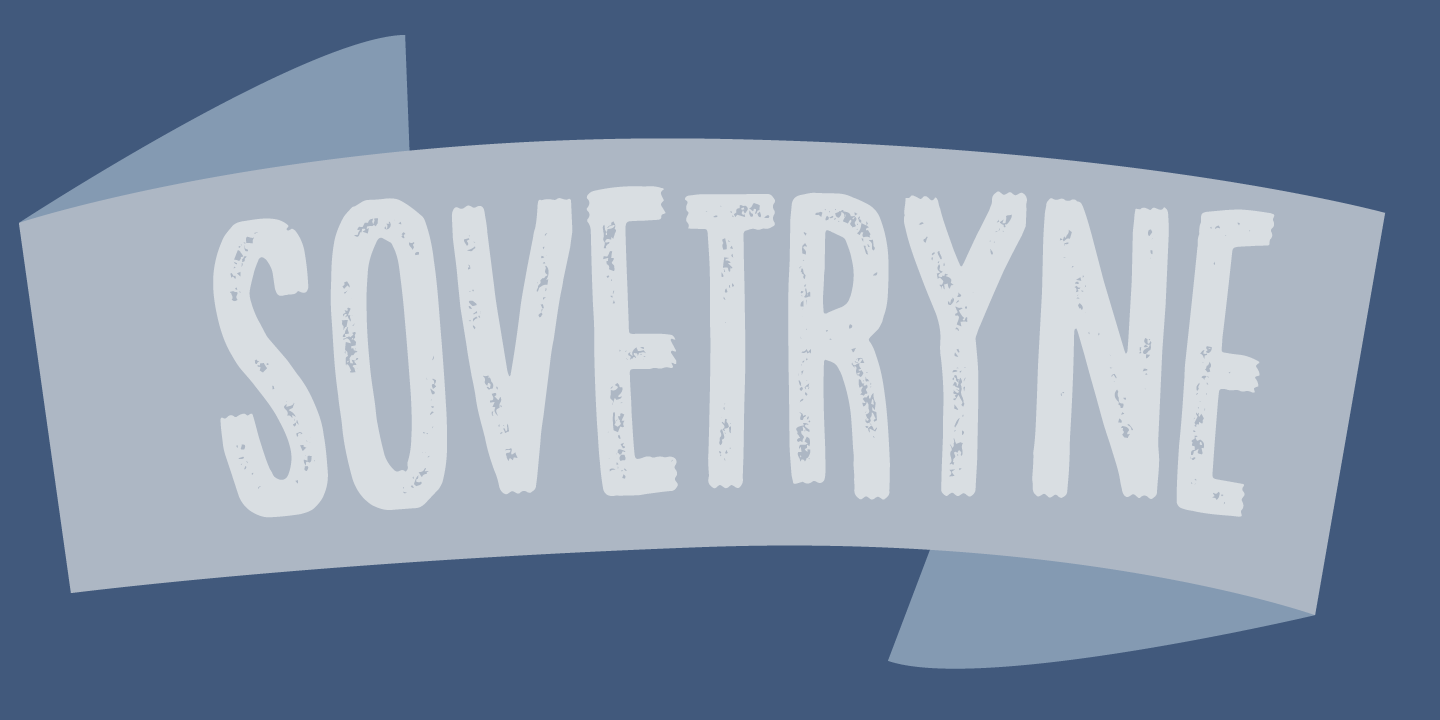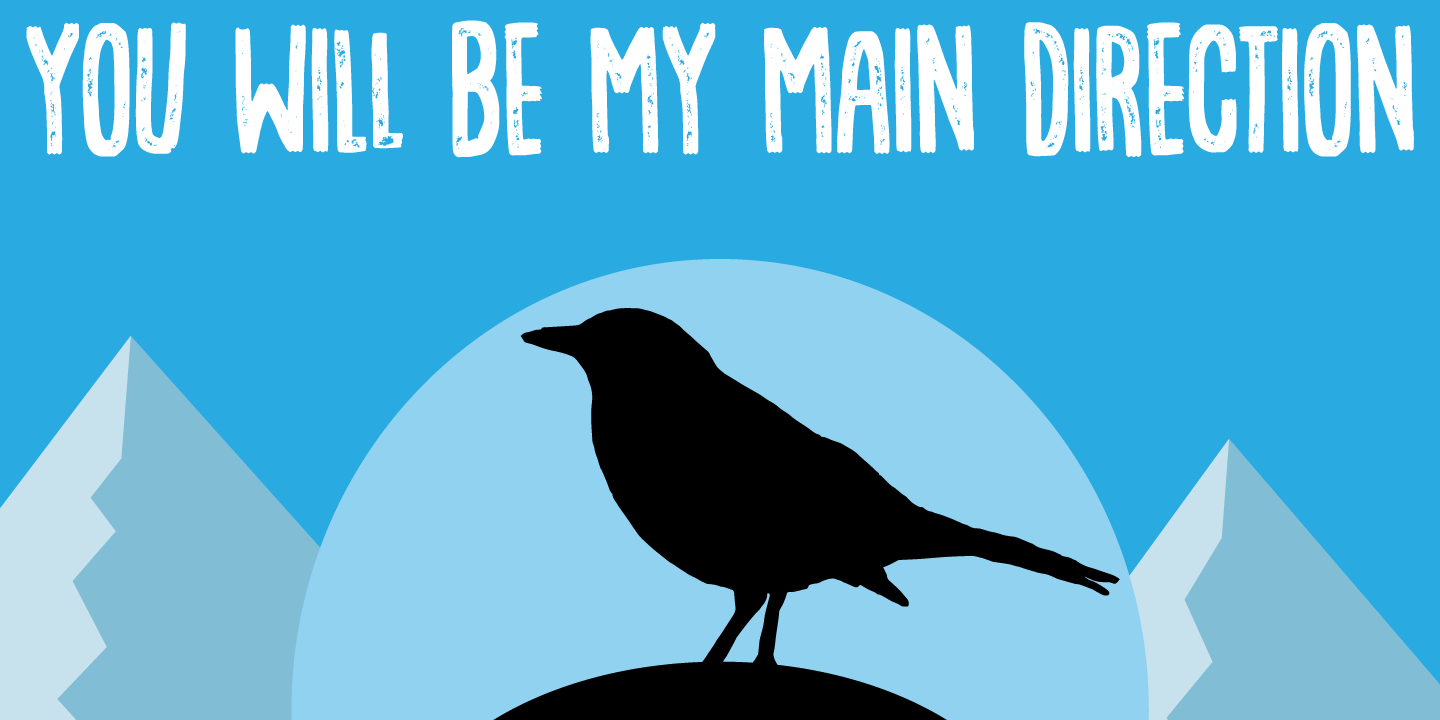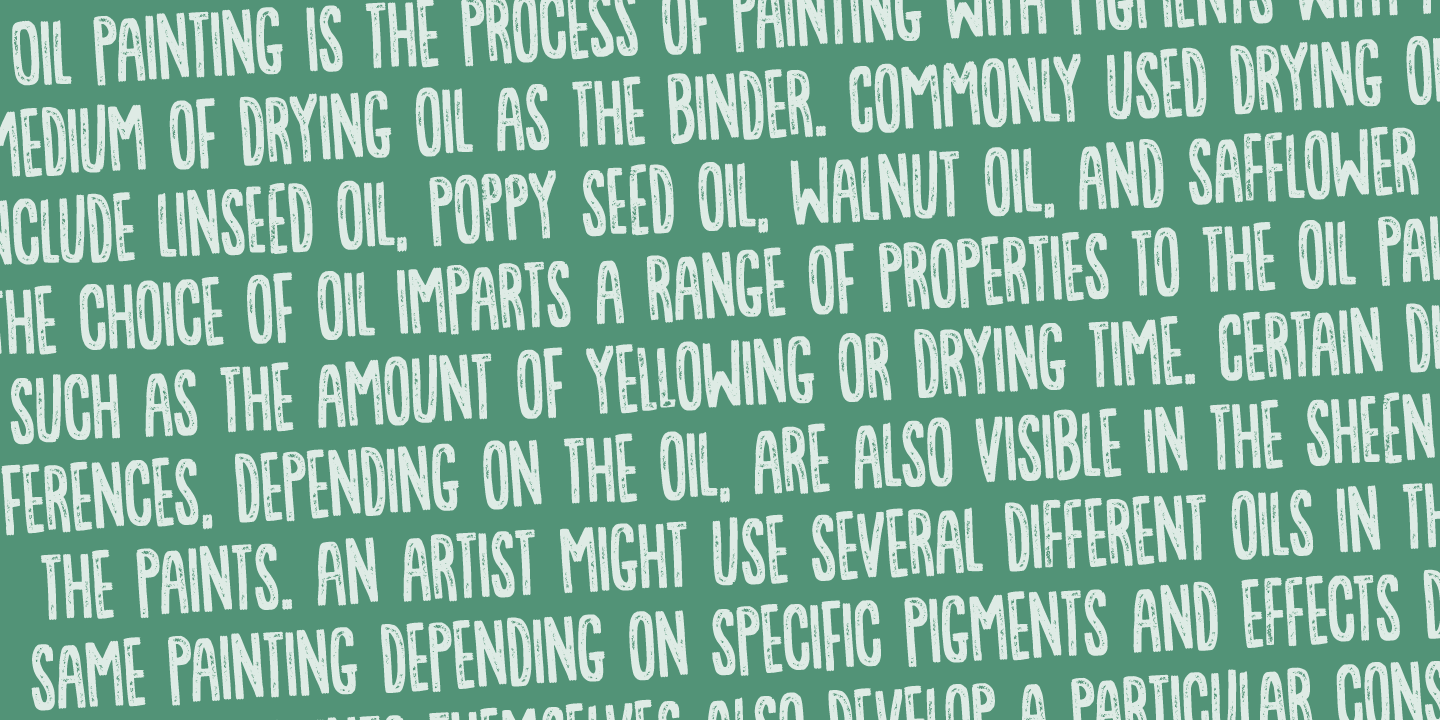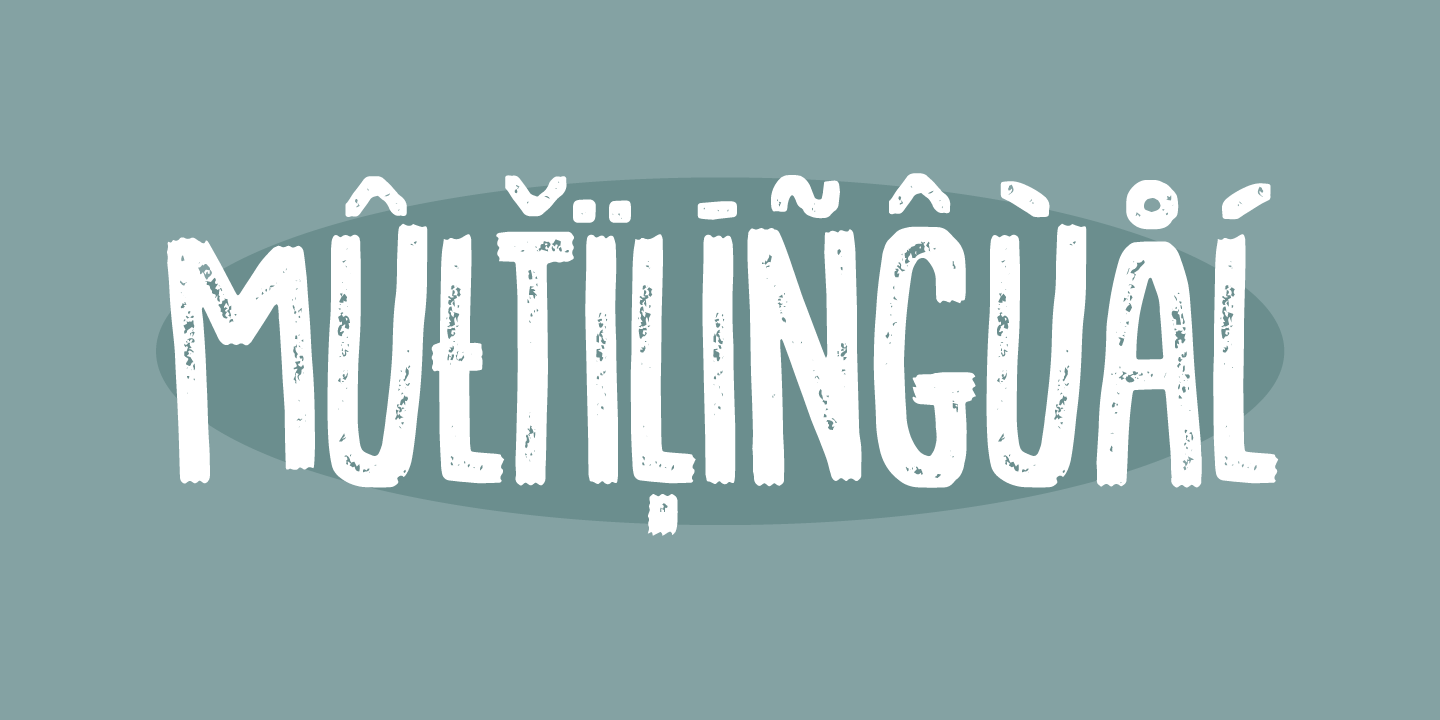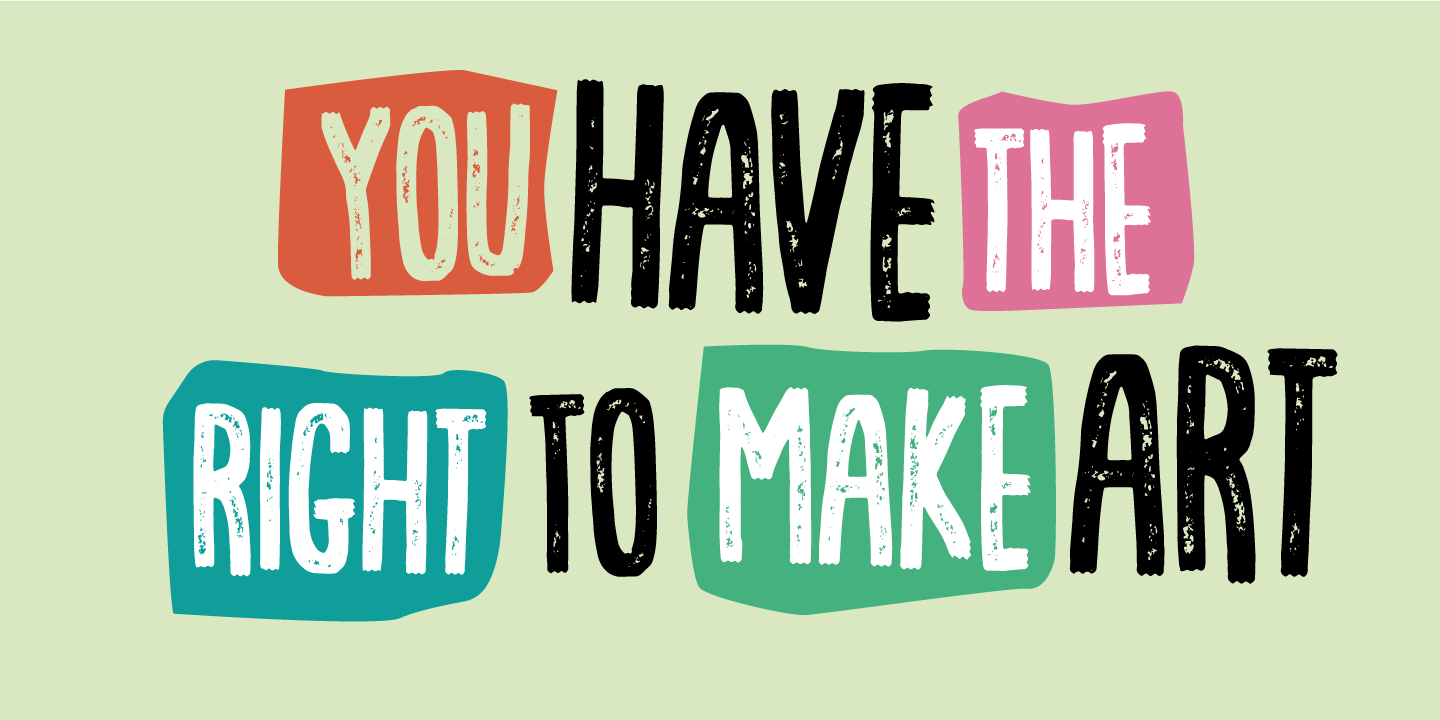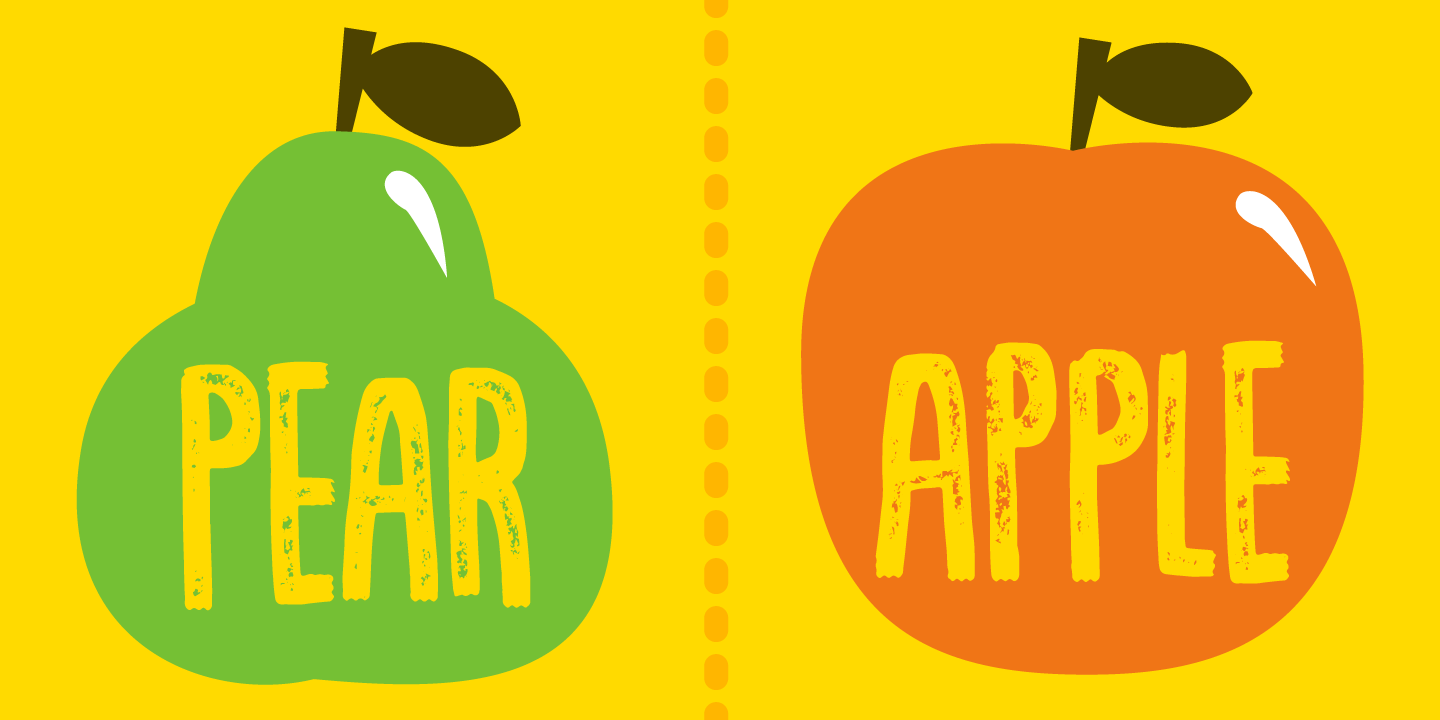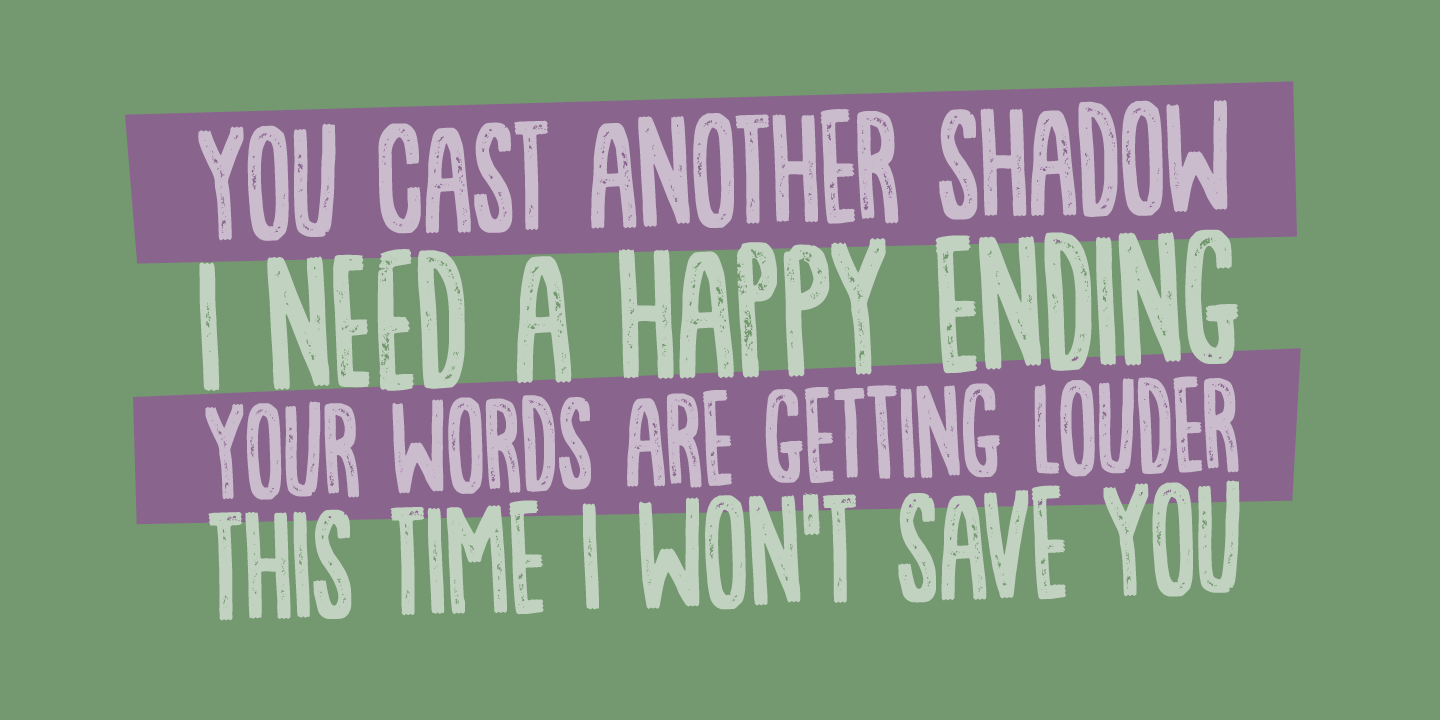
Sovetryne (1 font)
But that’s not the case with this font. It’s legible, even though it’s slightly worn. Change between upper- and lowercase letters to variate the typing - and turn on ligatures, in order to use the substitution of double letters such as aa, bb, cc and many more!
OpenType features: Ligatures, Alternates